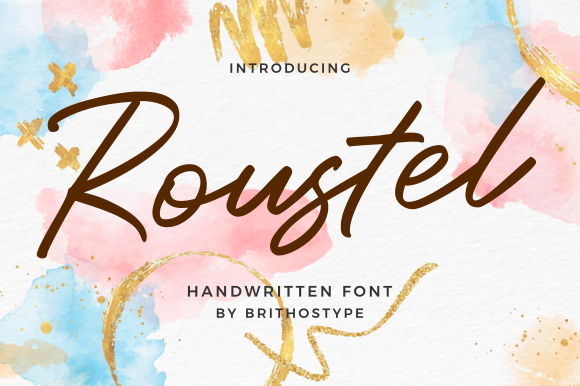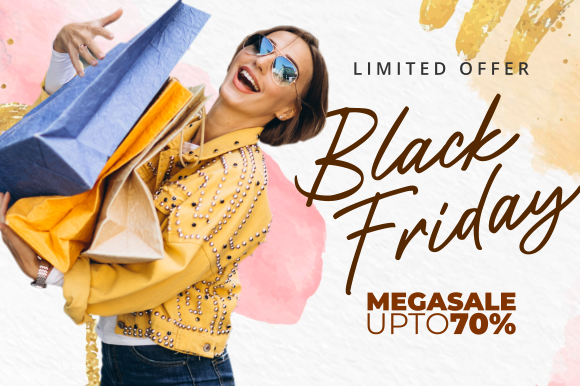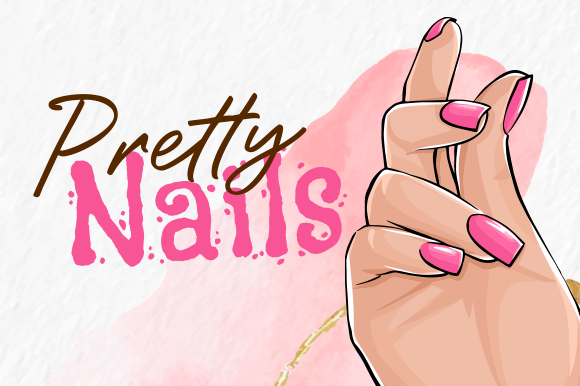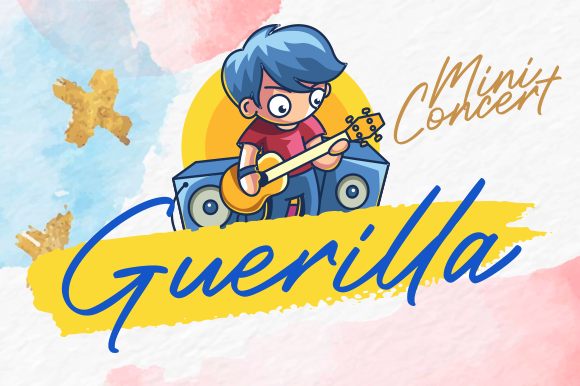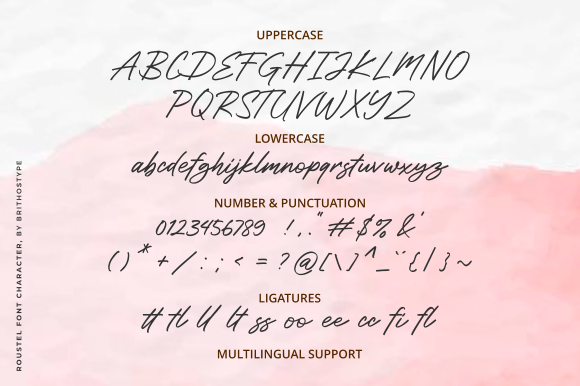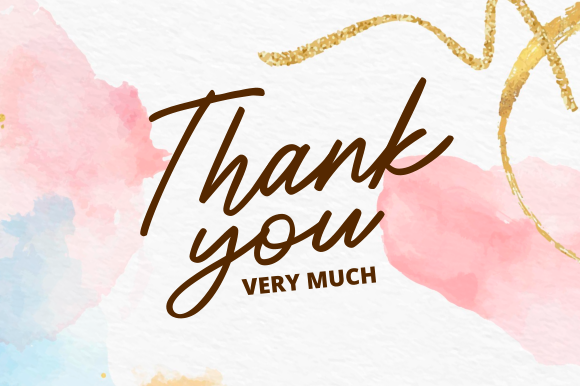
Roustel is a flowing and relaxed handwritten font. Fall in love with its incredibly versatile style and use it to create gorgeous wedding invitations, beautiful stationary art, eye-catching social media posts, and much more!